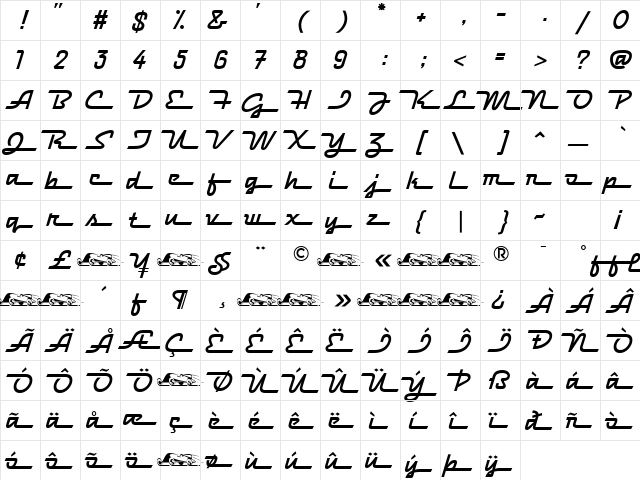
Raceway Medium
Design Context for Raceway Typeface
Raceway is a composed and adaptable typeface that performs quietly and consistently across a wide range of design contexts.